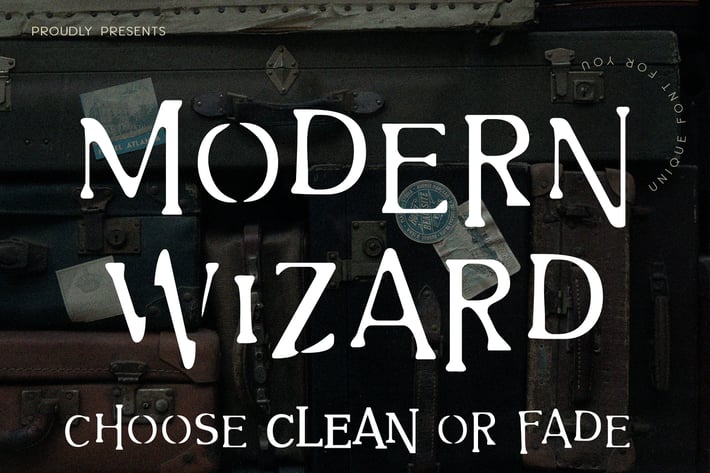
Modern Wizard Font
Momdern Wizard is Unique font. It can easily be matched to an incredibly large set of projects like logo, package, advertisement, magazine, , so add it to your creative ideas and notice how it makes them stand out!